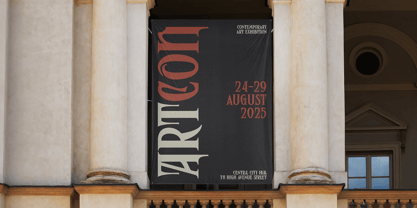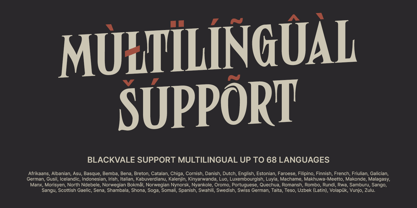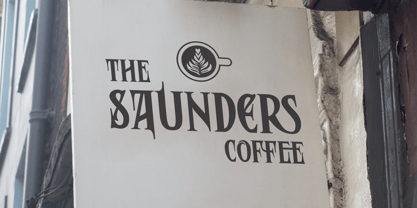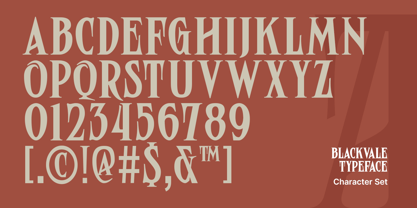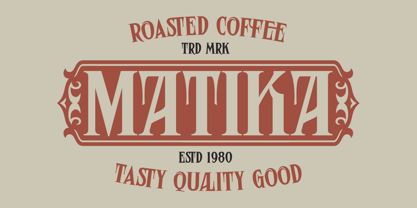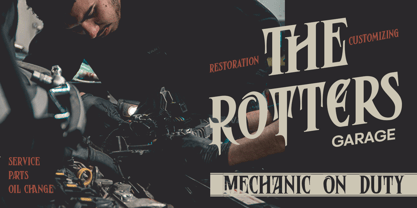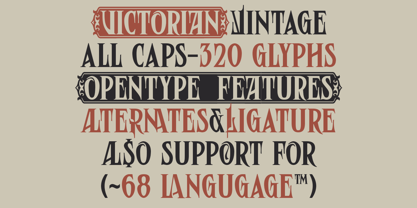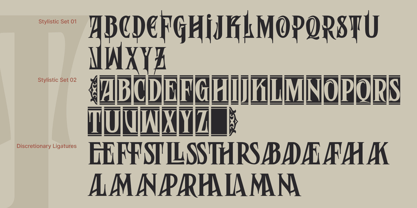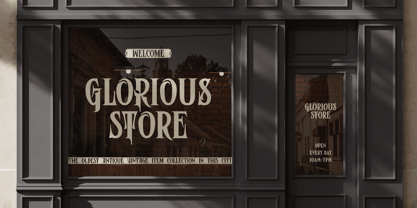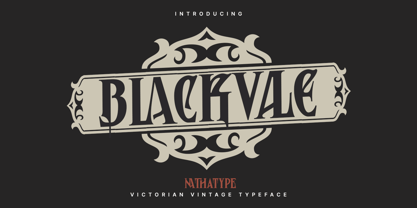
Blackvale
by Nathatype
The Blackvale Font Family was designed by Donis Miftahudin and published by Nathatype. Blackvale contains 1 styles.
Blackvale is a bold, all-caps vintage font inspired by the ornate elegance of Victorian-era typography. Its strong weight and decorative details capture the grandeur and sophistication of classic poster lettering, while maintaining a powerful presence perfect for modern design needs. Blackvale brings a timeless sense of drama and refinement to any project with its bold Victorian character. In addition, enjoy the features here.
Features:
• Ligatures
• Stylistic Sets
• Multilingual Supports
• Numerals and Punctuations